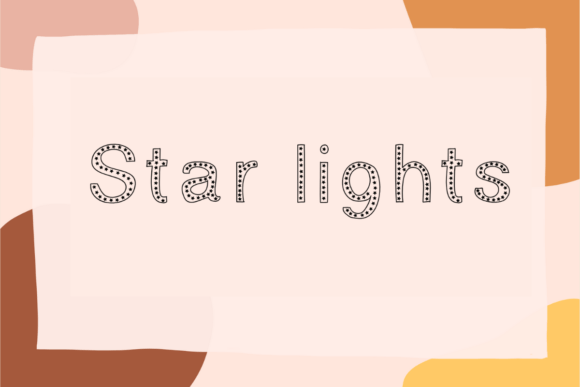
Step into the world of Star Lights, a font family designed to illuminate your creations with its playful and authentic charm. This enchanting font is more than just a collection of letters; it's a gateway to a world where imagination takes flight and creativity knows no bounds.
Crafted with meticulous attention to detail by the skilled hands of fonty88, Star Lights is a font that captures the essence of childhood dreams and school adventures. Its delicate strokes and whimsical lines dance across the page, evoking a sense of nostalgia and wonder.
Imagine the joy of crafting invitations for your child's birthday party, where every letter of Star Lights becomes a twinkling star, guiding your guests to a celebration filled with laughter and merriments. Or envision the delight on your little one's face as they use Star Lights to write their first story, their imagination soaring with each word they create.
This font is not just for children, though. Its playful spirit and authentic charm make it the perfect choice for anyone who wants to add a touch of whimsy to their projects. Whether you're designing posters for a local theater production, creating social media graphics for a quirky brand, or simply adding a splash of creativity to your personal projects, Star Lights will add a touch of magic to every character you type.
So, why settle for ordinary fonts when you can embrace the extraordinary world of Star Lights? Let this delightful font family guide you on a journey of imagination, where every word becomes a work of art and every project a reflection of your unique style.